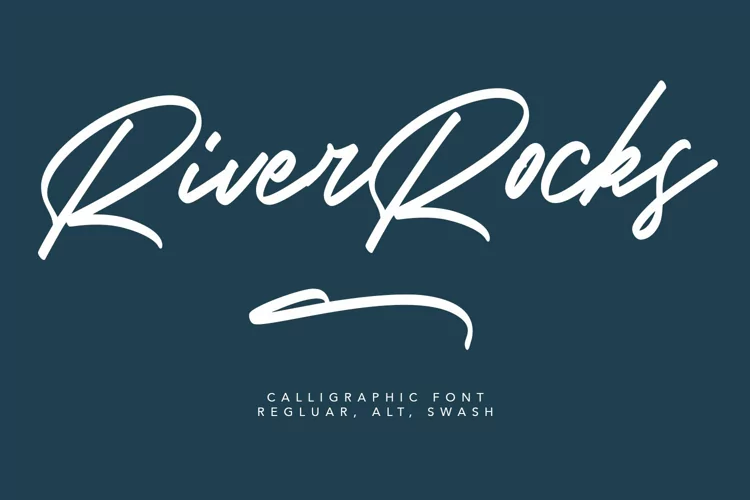
River Rocks Brush Font
Give your designs an authentic handcrafted feel. "River Rocks Brush" is perfectly suited to signature, stationery, logo, typography quotes, magazine or book cover, website header, clothing, branding, packaging design and more.